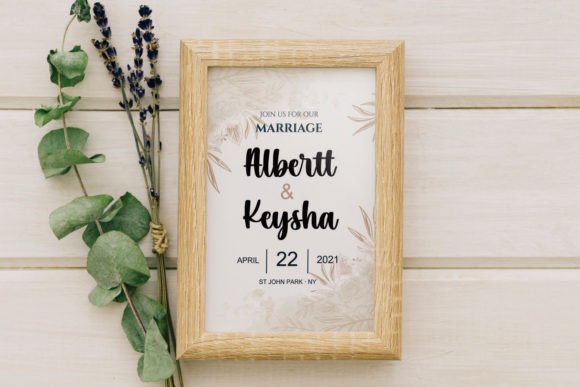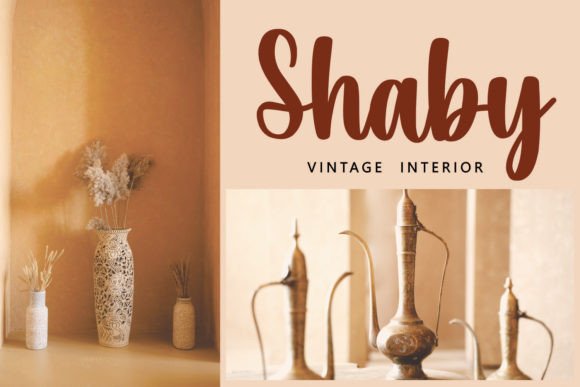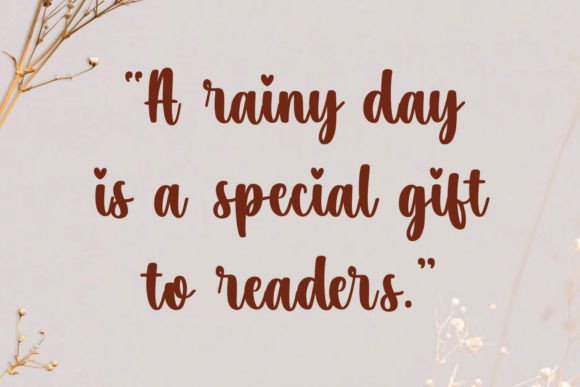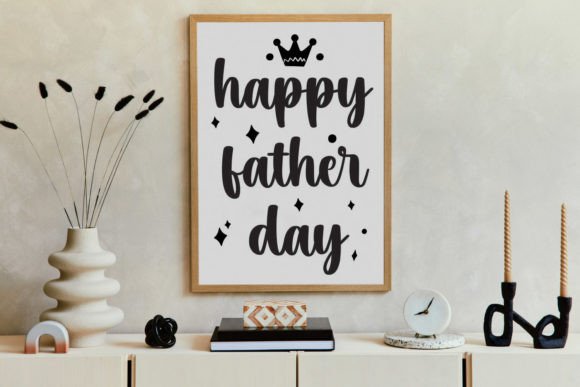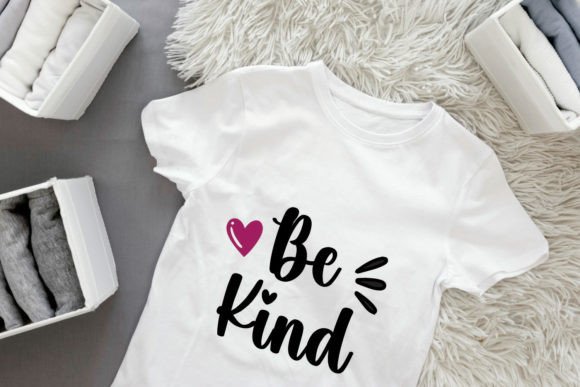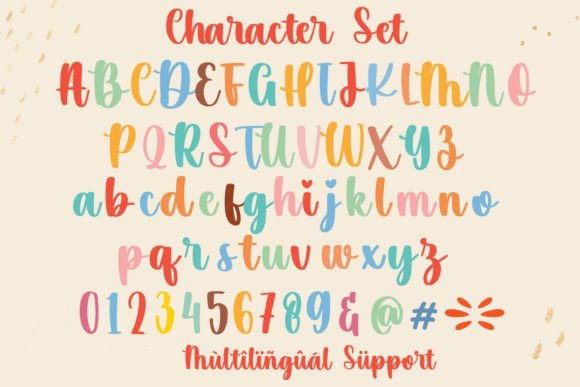
Introduction to Rainfall Font
I This beautifully crafted font combines the fluidity of handwritten script with a touch of whimsy, making it perfect for a wide range of projects.
Use Rainfall to add some color and personality to your wall displays, wedding invitations, social media post logos, advertisements, product packaging and more .
Key Features of Rainfall Font
Why Choose Rainfall Font?
Rainfall Font offers exceptional quality and versatility, making it a valuable addition to your design toolkit. Whether you’re creating for personal projects or commercial use, Rainfall Font delivers professional results.